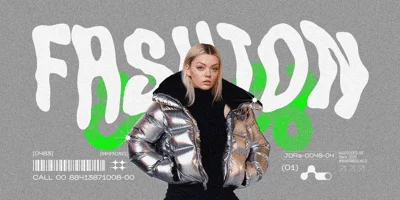
Liquor Font
Liquor Font delivers a bold typeface that embodies distillery craftsmanship and spirits sophistication with intoxicating character. However, for commercial use, you must purchase this font. You can download it for free for testing purposes only.
Liquor Font excels in beverage design applications including craft distillery branding, whiskey bottle labels, cocktail bar signage, spirits packaging design, brewery communications, bar and tavern materials, alcohol festival promotions, premium liquor advertisements, speakeasy-themed venues, and sophisticated drinking establishment campaigns. This spirited typeface brings authentic distillery character to alcohol-focused design projects.
What makes Liquor Font truly exciting is its perfect embodiment of distillery tradition with robust letterforms that evoke aged barrels and artisanal craftsmanship through bold construction. The font features strong characters with distillery proportions and spirits authenticity that convey quality, tradition, and the sophisticated culture surrounding premium alcohol production. Its spirited personality and distillery heritage make it ideal for brands celebrating craft spirits, artisanal brewing, and audiences who appreciate fine liquor, cocktail culture, and the time-honored traditions of distillation that create exceptional drinking experiences.
The Liquor Font family typically includes Regular weight with potential aged and distressed variations that enhance its distillery character. These spirited options provide designers with complete alcohol styling while maintaining the font's distinctive craft elegance and authentic presentation across various beverage applications and spirits contexts.
Whether you're developing craft distillery branding, creating spirits campaigns, or designing premium alcohol marketing materials, Liquor Font provides the distillery authority and spirits sophistication that beverage projects require. Its exceptional character and artisanal appeal make it invaluable for designers working with distilleries, craft breweries, and premium alcohol brands requiring typography that celebrates distillation artistry, spirits heritage, and the sophisticated culture of fine drinking that brings people together to appreciate the craftsmanship, tradition, and social ritual of sharing quality spirits in memorable drinking experiences.